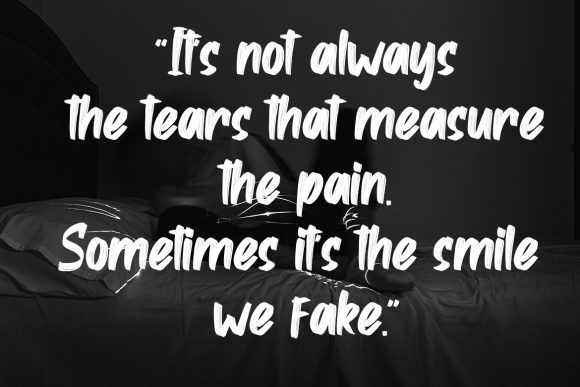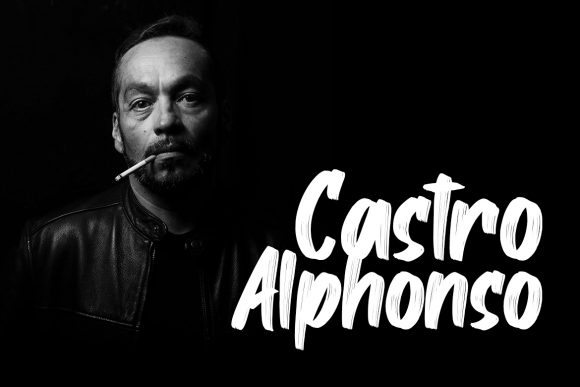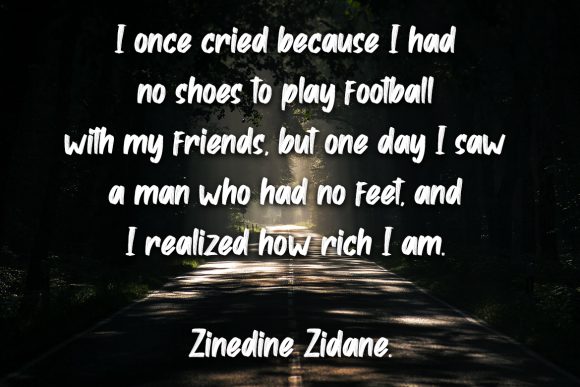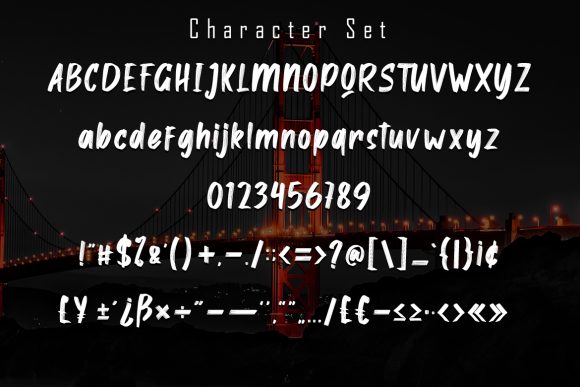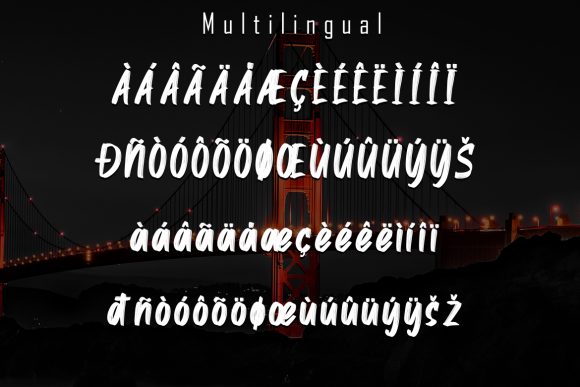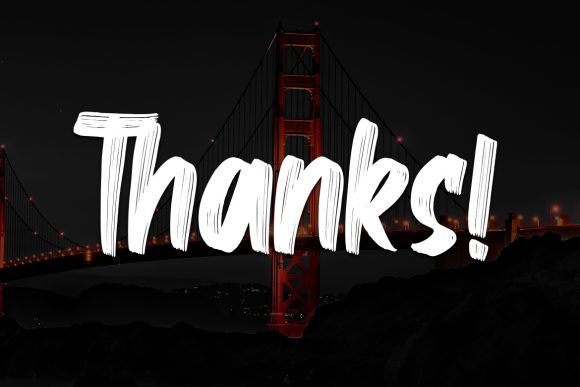
Introducing Alston Font: The Ultimate Urban Display Font
Are you tired of using the same old fonts for your designs? Look no further! Alston Font is here to revolutionize your creative projects with its unique, brushed, and thick lettered display style. This modern font is perfect for designers and crafters who want to add an urban, cool, and edgy touch to their work.
What is Alston Font?
Alston Font is a brushed, thick lettered display font that exudes an urban, cool, and modern aesthetic. Its distinctive style makes it perfect for a wide range of applications, including logos, branding, invitations, stationery, wedding designs, social media posts, and much more! Whether you’re a professional designer or a crafty DIY enthusiast, Alston Font is sure to elevate your creative projects to the next level.
Key Features of Alston Font
- Unique Brushed Style: Alston Font boasts a one-of-a-kind brushed style that adds a touch of ruggedness and texture to your designs.
- Thick Lettered Display Font: The font’s thick letters make it perfect for headlines, titles, and short phrases that need to make a bold statement.
- Urban, Cool, and Modern Look: Alston Font’s sleek and edgy design makes it ideal for projects that require a modern and trendy vibe.
- Highly Versatile: From logos and branding to invitations and social media posts, Alston Font can be used for a wide range of creative projects.
Alston Font is a dream come true for designers and crafters who want to add a unique touch to their work. Whether you’re creating:
- Logos and Branding: Use Alston Font to create a bold and memorable logo that reflects your brand’s personality.
- Invitations and Stationery: Add a touch of elegance and sophistication to your invitations and stationery with Alston Font.
- Wedding Designs: Make your wedding designs stand out with Alston Font’s modern and romantic style.
- Social Media Posts: Use Alston Font to create eye-catching social media posts that grab attention and drive engagement.
Why Choose Alston Font?
With so many fonts available, why choose Alston Font? Here are just a few reasons:
- Unique Style: Alston Font’s brushed, thick lettered style sets it apart from other fonts.
- Easy to Read: Despite its bold style, Alston Font is easy to read, making it perfect for headlines and titles.
- Customizable: Experiment with different colors, textures, and effects to make Alston Font your own.
Get Creative with Alston Font
Ready to unleash your creativity with Alston Font? Here are some ideas to get you started:
- Create a Bold Logo: Use Alston Font to create a logo that makes a statement.
- Design a Stunning Invitation: Add a touch of elegance to your invitations with Alston Font.
- Make a Statement on Social Media: Use Alston Font to create eye-catching social media posts that drive engagement.
In conclusion, Alston Font is a versatile and stylish display font that’s perfect for designers and crafters who want to add an urban, cool, and modern touch to their creative projects. With its unique brushed style, thick lettered design, and highly versatile nature, Alston Font is sure to become a go-to font in your collection.